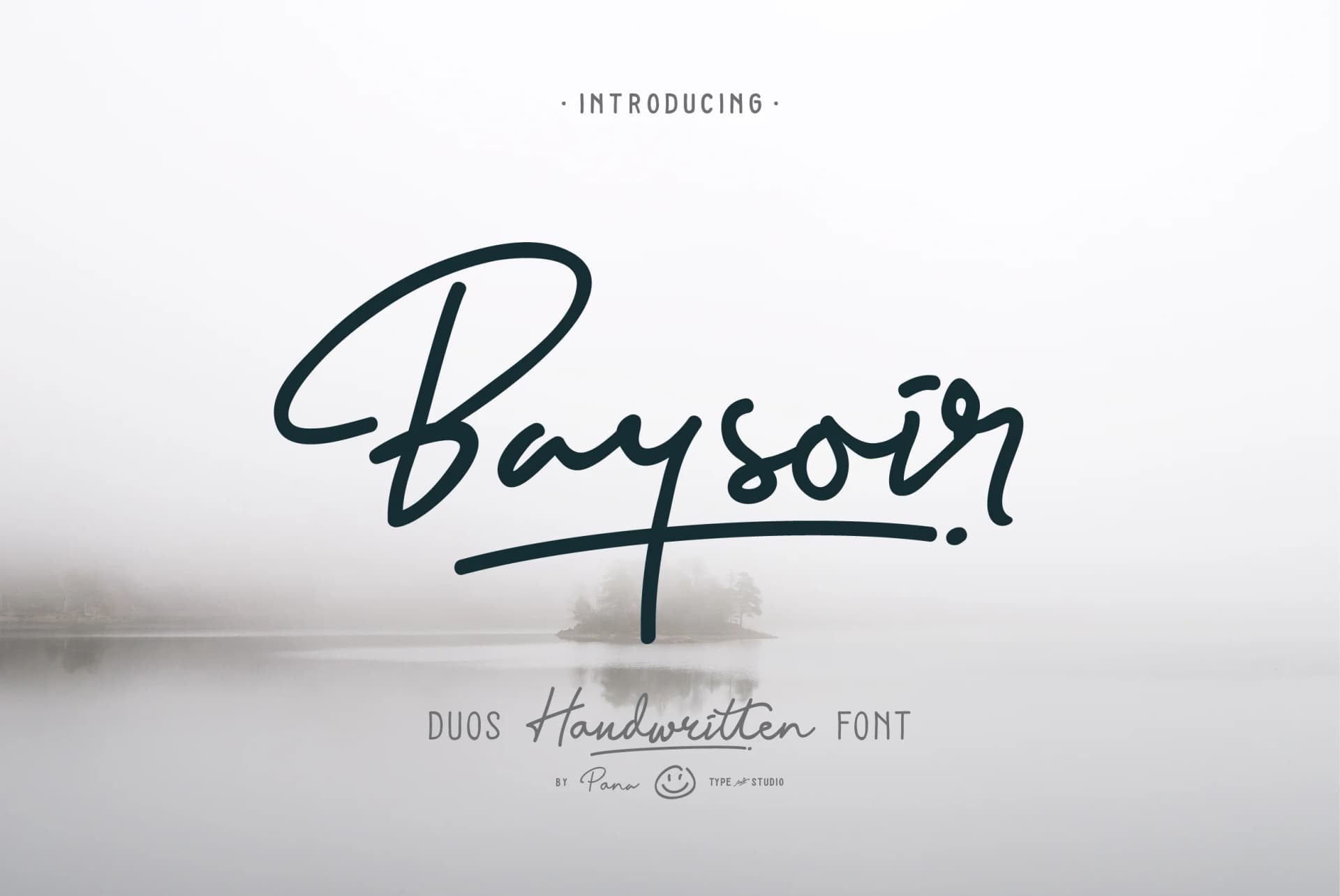
Baysoir by Pana Type is a handwritten signature typeface that brings authentic brush-stroke character to sophisticated design work. Born from hand-painted letterforms, the collection includes both an expressive script style and a complementary Display Sans serif option, each crafted with organic movement and genuine warmth that feels both contemporary and timeless. Together, these variations create a versatile pairing ideal for projects that demand personality without sacrificing professionalism. The typeface shines in wedding stationery suites, where its natural rhythm enhances invitations, save-the-date cards, and thank-you notes with understated elegance. Beyond weddings, Baysoir proves invaluable for boutique branding projects, specialty product packaging, and hand-lettered event signage where authentic character matters. Available with multiple weights including bold options, the font family provides the flexibility needed for everything from fine detail work to commanding headlines while maintaining its distinctive hand-crafted quality. Whether you're designing delicate greeting cards or creating bolder brand applications, Baysoir's combination of script warmth and sans serif stability handles the diverse needs of contemporary design. Its hand-painted foundation brings organic personality to work where conventional typefaces might feel too rigid, while the sans serif variant ensures readability and professionalism in any context. Get Baysoir Font on Creative Fabrica.
- Elegant, Flowing, Baysoir
Baysoir Font is a script font that shines as a display or heading face. Pair it with a clean sans-serif or serif font for body text — the contrast creates a clear hierarchy while the two styles stay balanced and easy to read.
Baysoir Font
by Pana Type